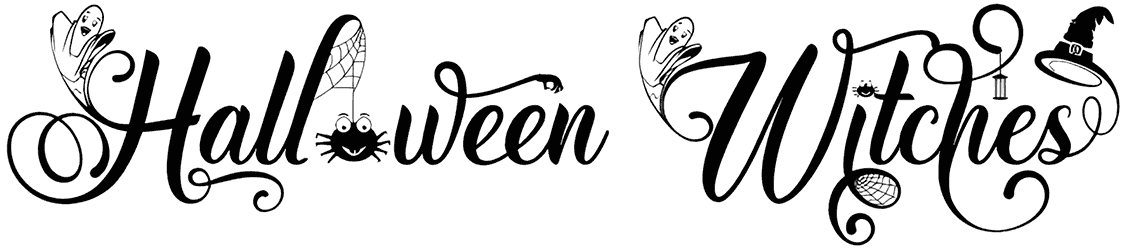
Halloween Witches Script Font
On the surface, it might just be an animated calligraphy font with deep curly lettering. Just have a look at the Halloween Witches Script to find the intimate, natural spirit of the font to start revealing itself.
It doesn’t matter whether it’s a cosmetic brand, Halloween posters, apparel design, or logo for your business; in all cases, you can’t see anything more appealing than this exquisite Halloween font. Bear in mind that it does not support some of the numbers.